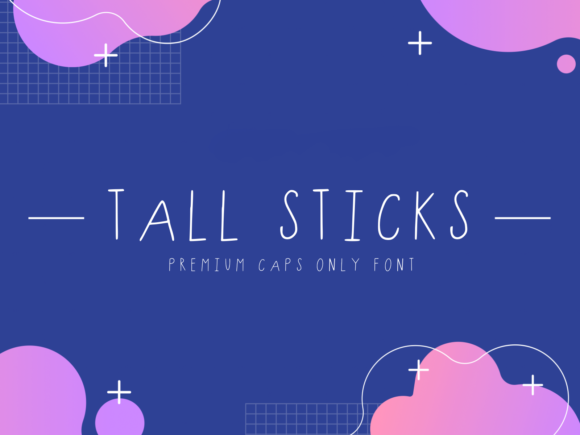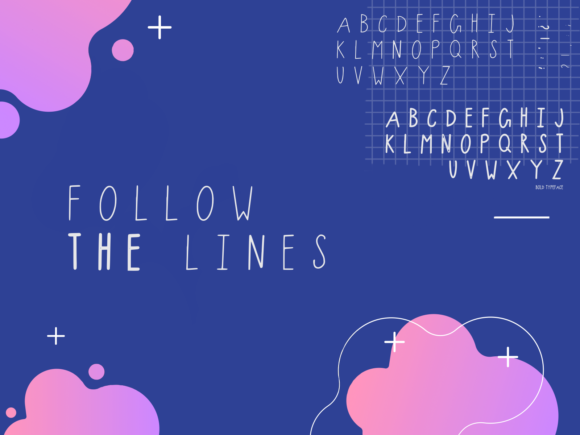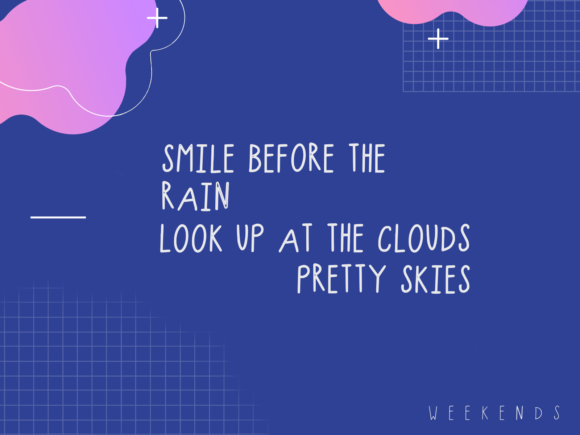
Tall Sticks Font
About Tall Sticks Font
Tall Sticks is a simple yet funky font that is perfect to use for all creative projects. Tall Sticks has thin and tall characters. This all caps font works great for headings, titles, and logos.